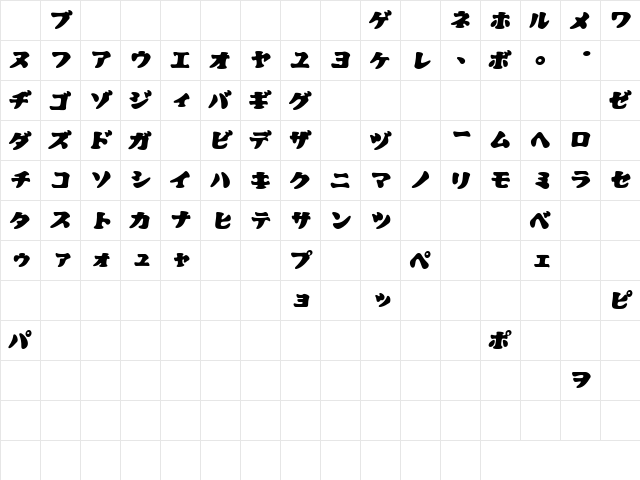
CooberBlackOblKat Regular Font Preview
CooberBlackOblKat Regular
CooberBlackOblKat Regular Font Details
Design Context for CooberBlackOblKat Typeface
CooberBlackOblKat takes a measured approach to typography — its balanced proportions and neutral character make it a reliable workhorse for both digital and print work.